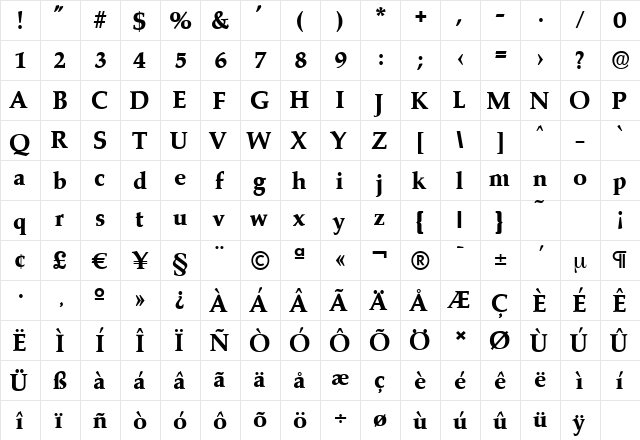
MarathonSerial-Xbold Regular
Design Context for MarathonSerial-Xbold Typeface
MarathonSerial-Xbold takes a measured approach to typography — its balanced proportions and neutral character make it a reliable workhorse for both digital and print work. The heavy weight commands attention and anchors typographic hierarchies.